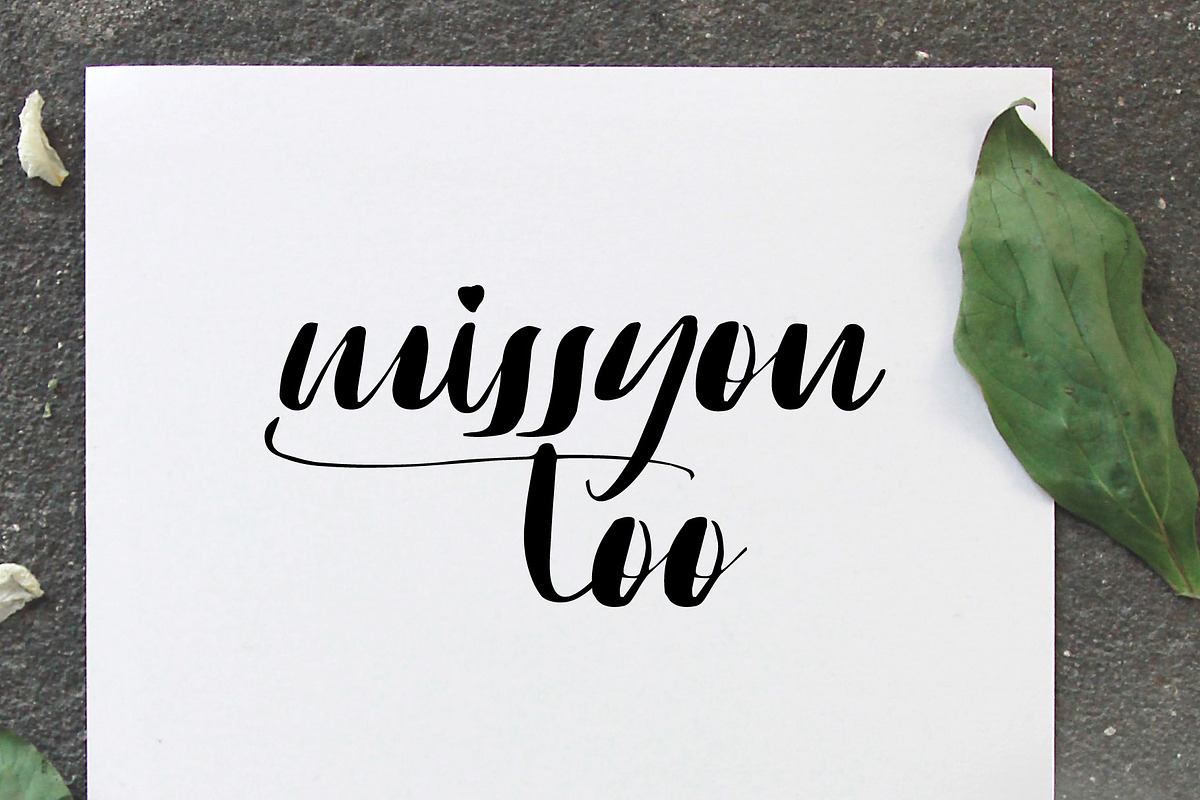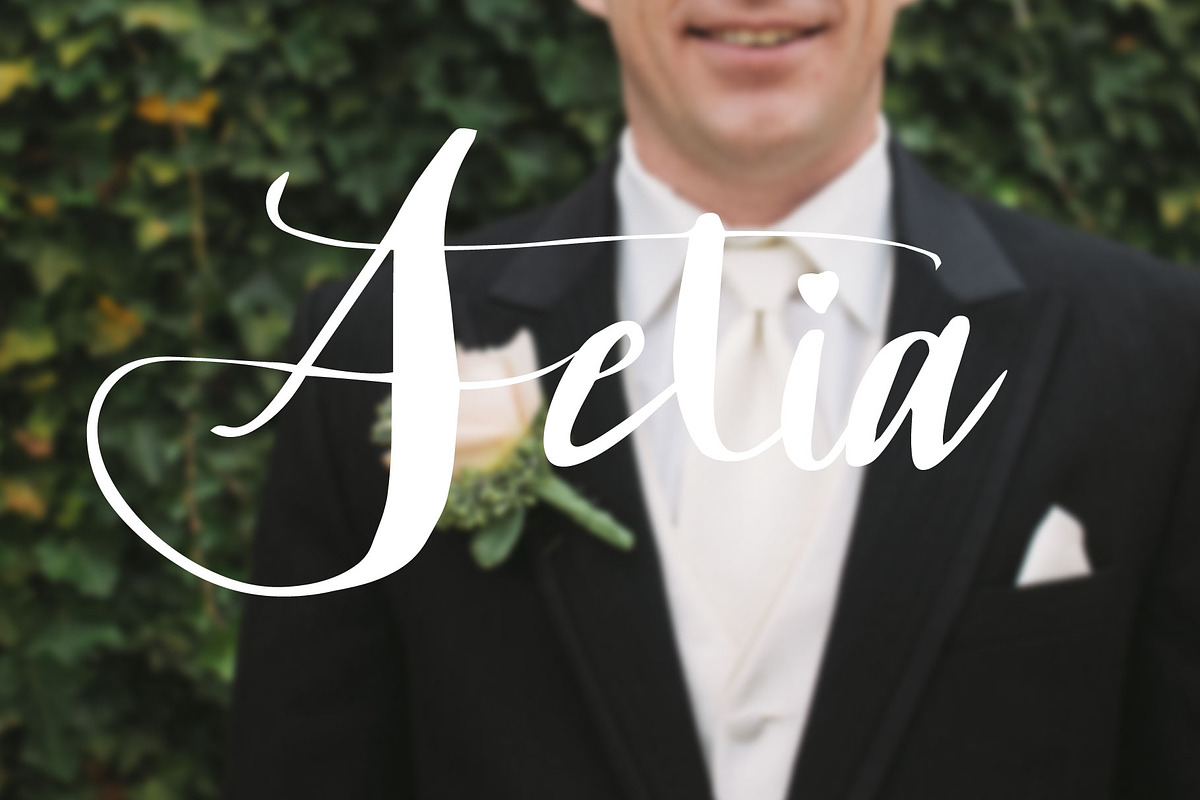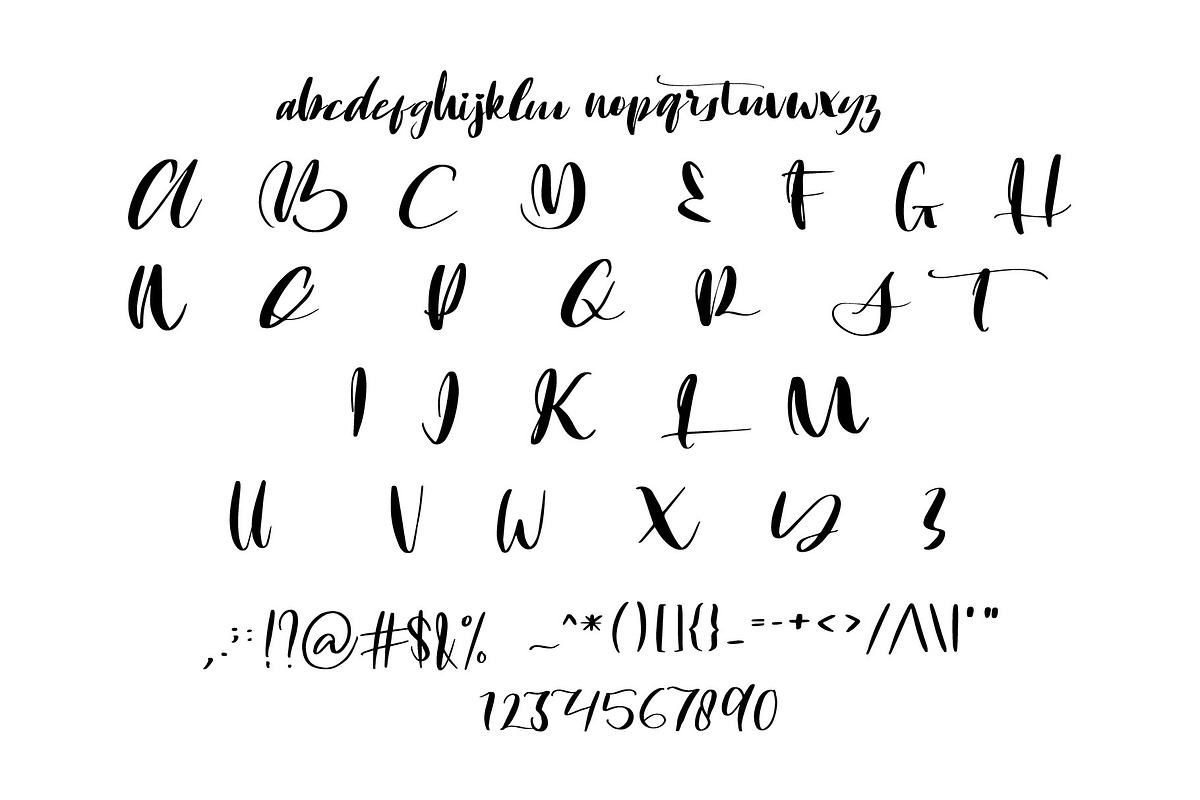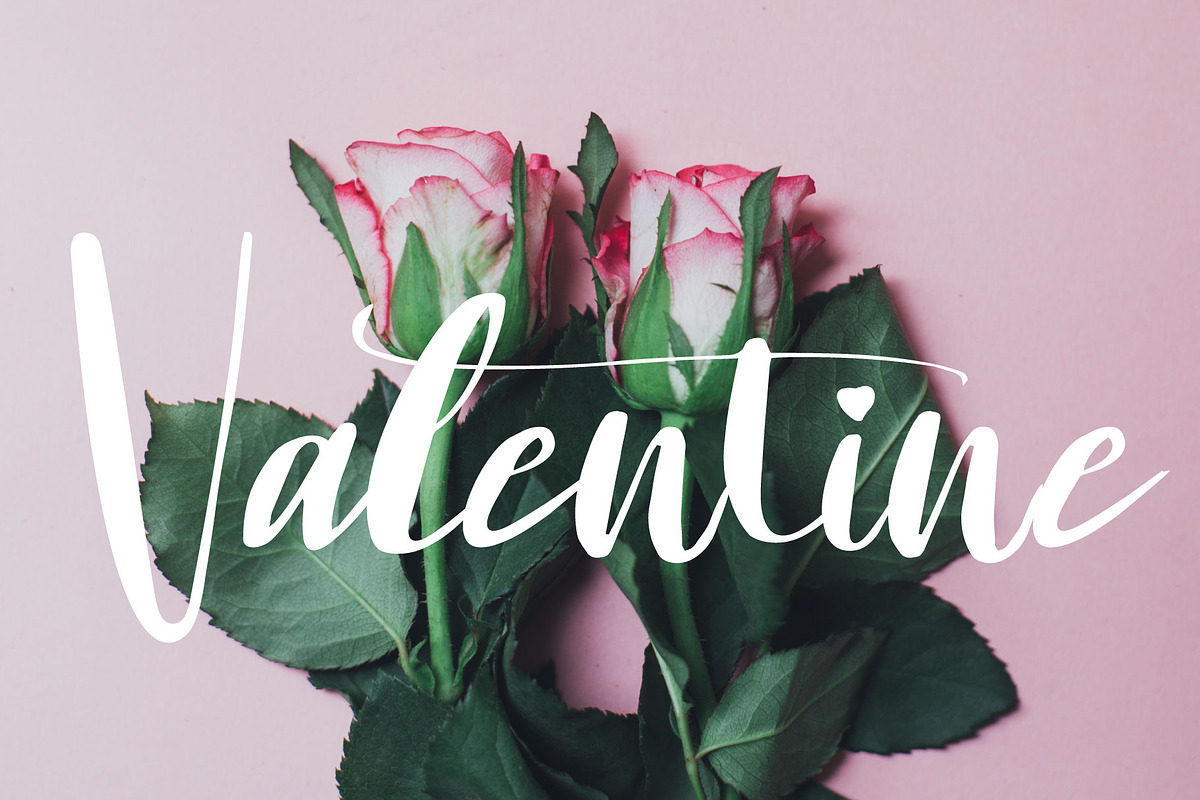
Setia font
Setia Font by Goodigital13 is a font selected for branding, posters, packaging, typography.
Why Setia font is worth a look
Setia font by Mariyana fits naturally into Branding, posters, packaging, typography.